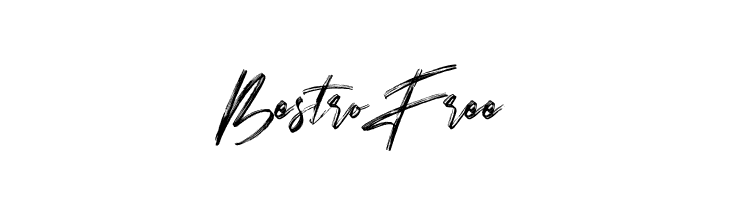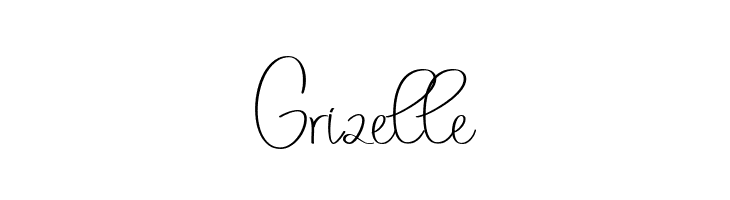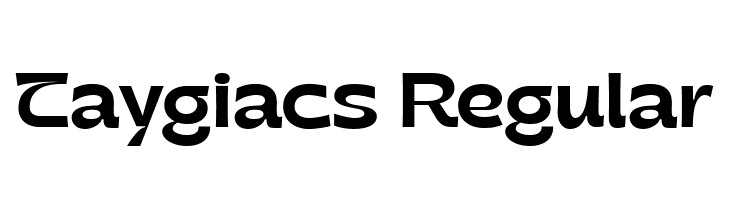
A bold, brush-style font with dynamic, artistic strokes.
A cursive, handwritten font with elegant, flowing strokes.
A playful, bold handwritten font with a whimsical and friendly style.
A playful, rounded, and extra light font with a modern and minimalist style.
A bold, angular font with a futuristic and aggressive style.
A bold, geometric font with a futuristic and playful aesthetic.
A bold, angular font with a modern and edgy style, perfect for impactful designs.
A modern, flowing script font with interconnected letters and medium contrast.
A bold, cursive script font with a lively and dynamic style.
A flowing, cursive script font with elegant, interconnected strokes.